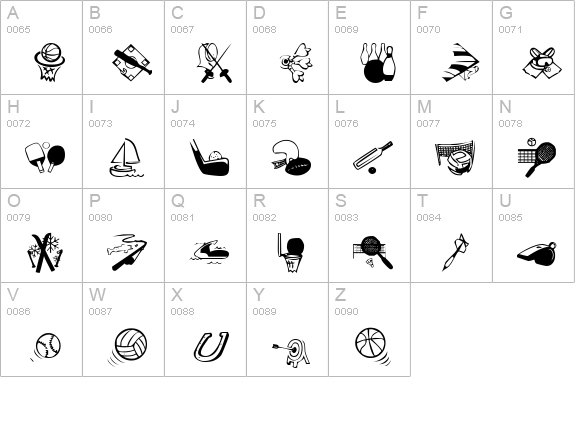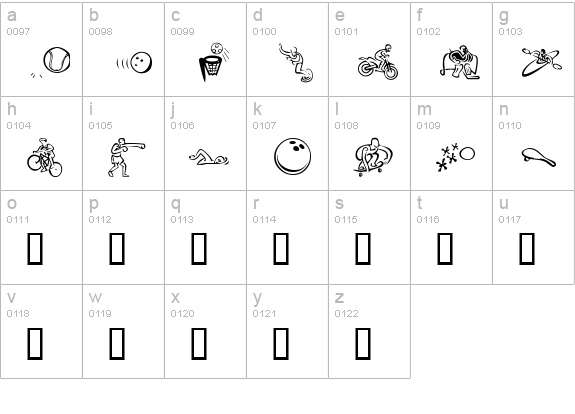
KR All Sport Font Details
KR All Sport font is a dynamic and energetic typeface that exudes a sense of action and movement. Its bold and athletic design makes it perfect for sports-related projects, such as team logos, event posters, and athletic apparel branding. With its clean lines and strong presence, KR All Sport font commands attention and conveys a sense of power and strength. The best part is that KR All Sport font is available for free download at FontsMarket.com. This means that you can easily access this versatile typeface and use it in your designs without any cost. Whether you're designing for a sports team, a fitness brand, or any other project that requires a bold and impactful font, KR All Sport font is sure to deliver the perfect look. Download it now and add a touch of athleticism to your designs!